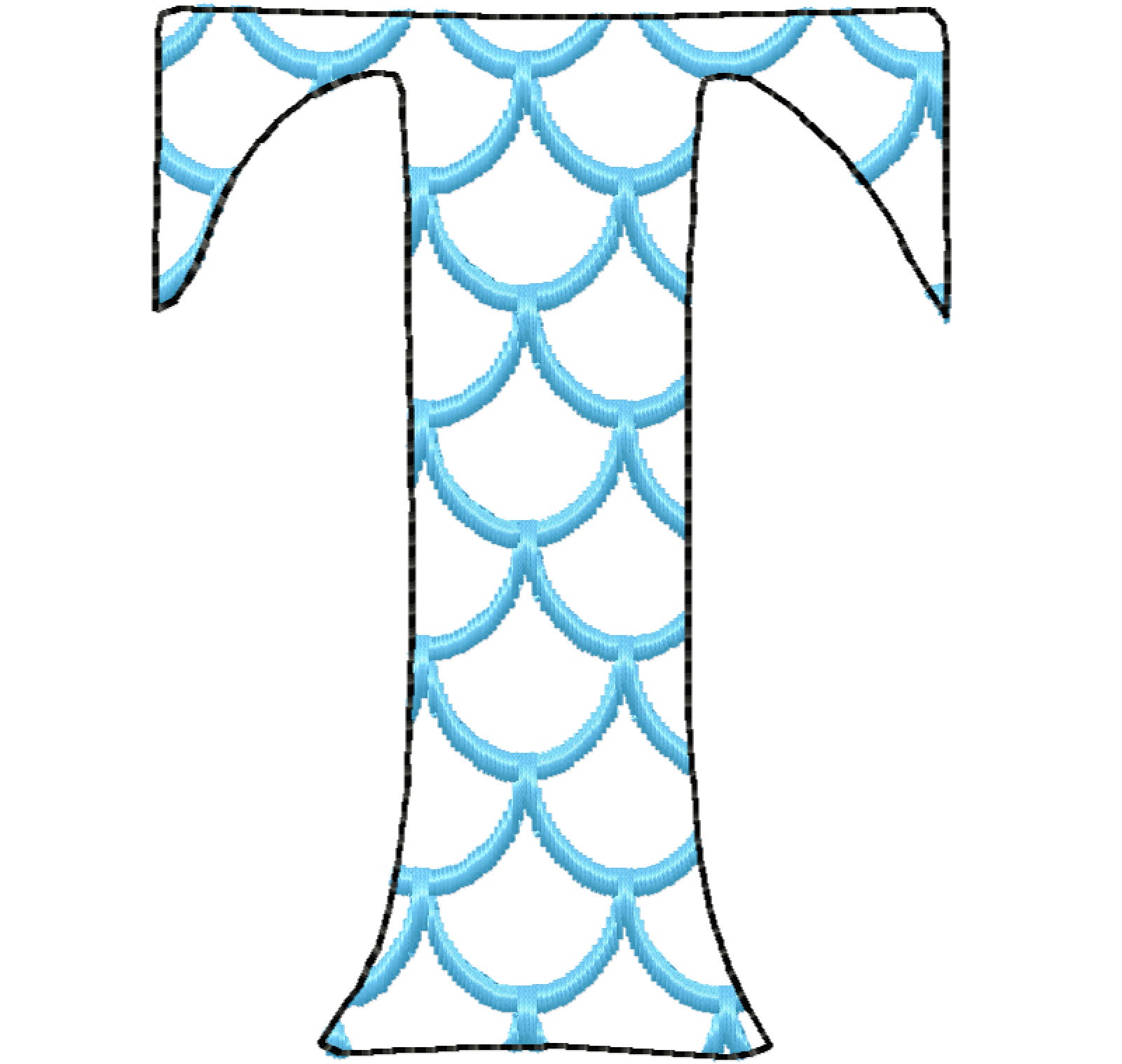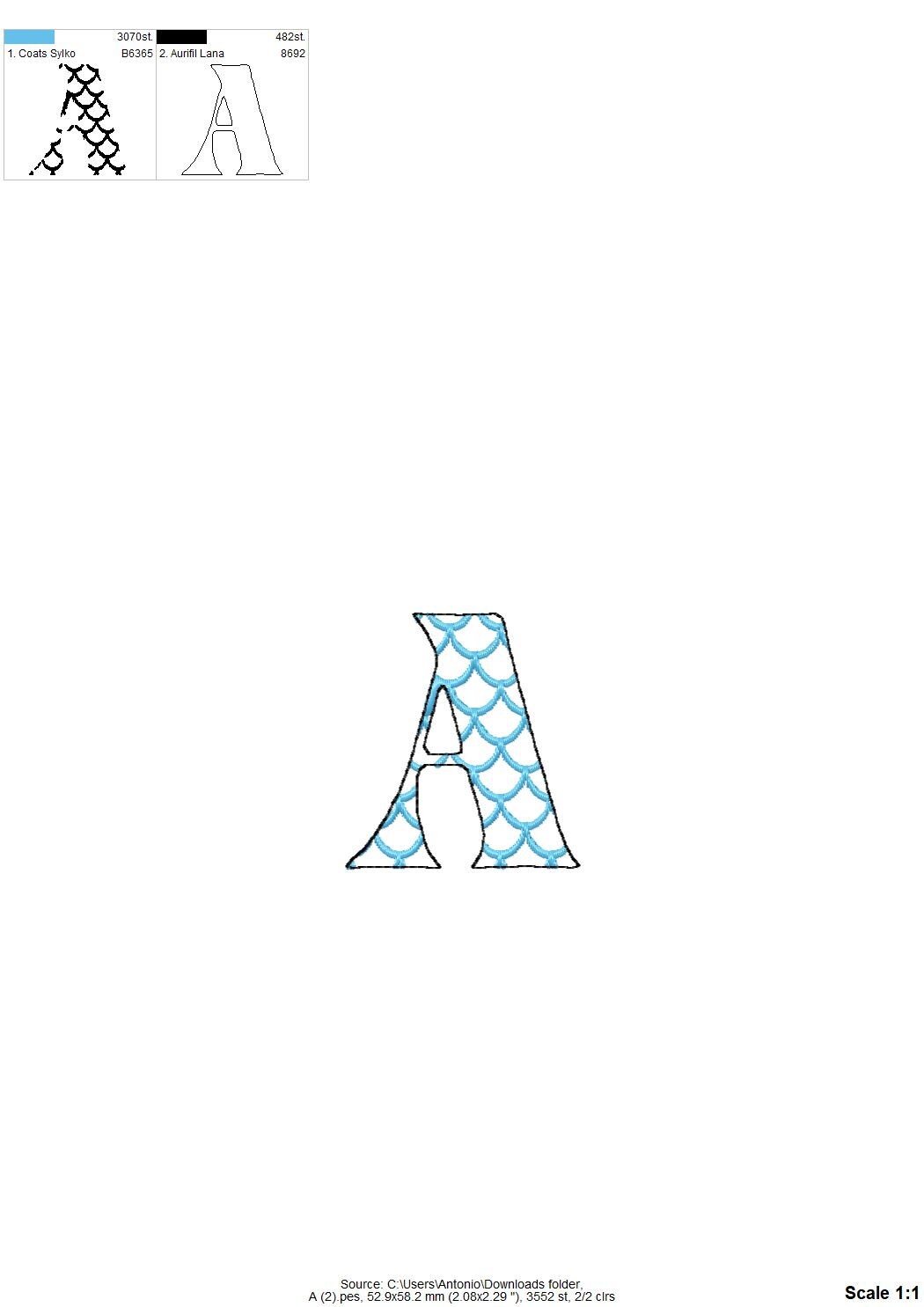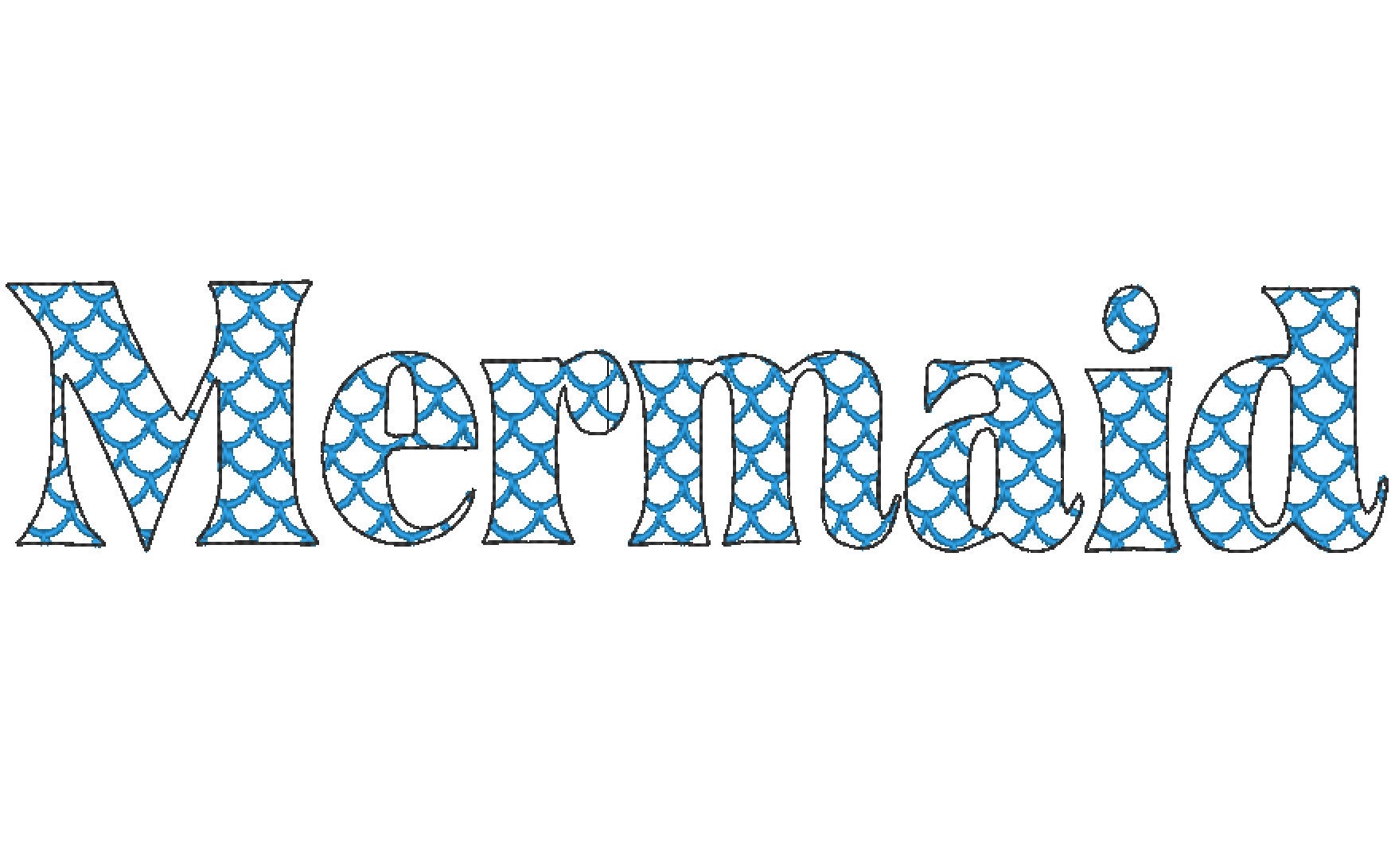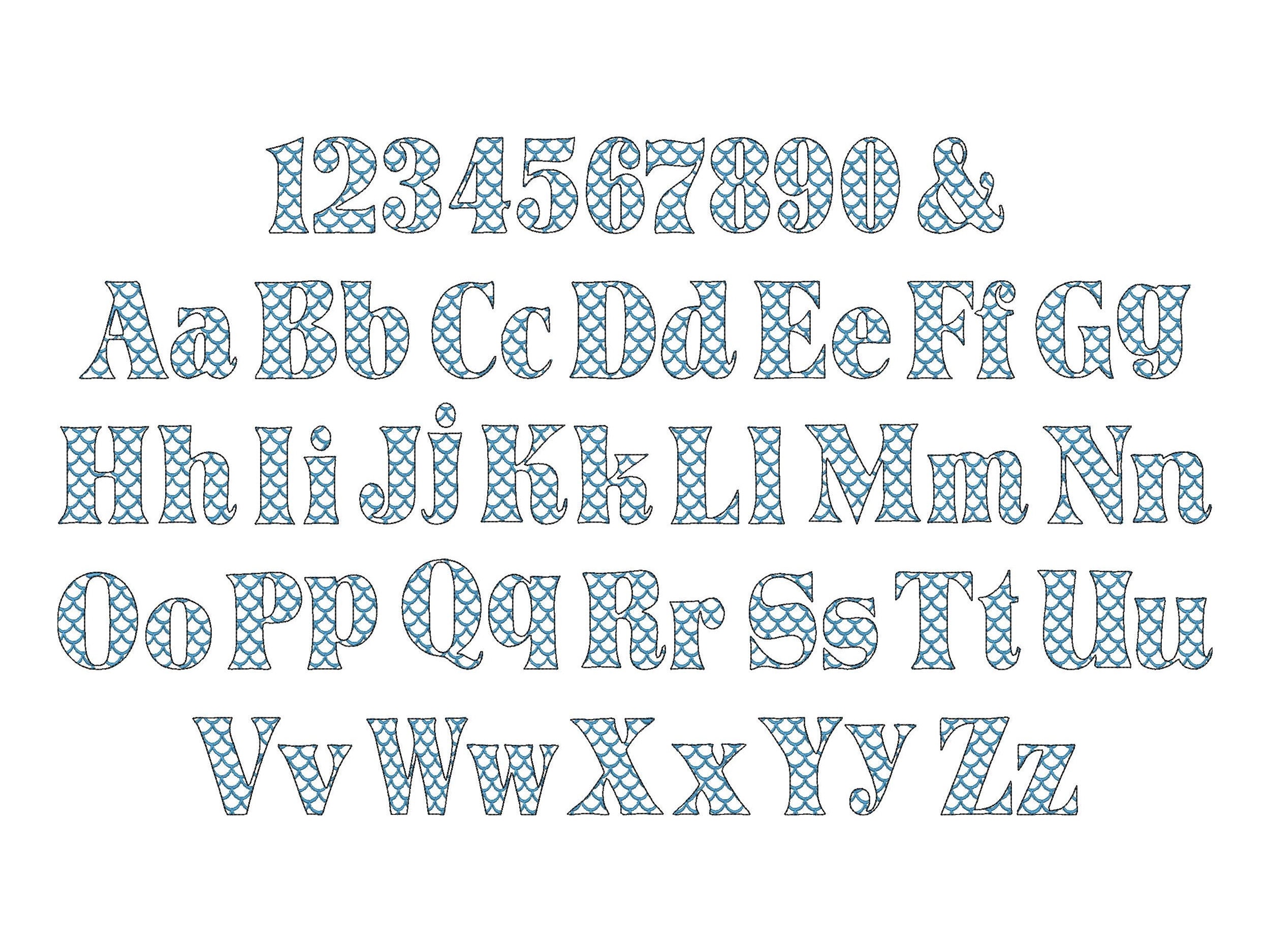
Scalloped 2 Color Mermaid Monogram FONT alphabet machine embroidery designs assorted sizes awesome mermaid tail embroidery font A-Z scallop
Font is transparent, it has satin stitch scallops and a light bean stitch outline. The background fabric looks through.
Included: numbers, lowercase and uppercase letters, and ampersand &